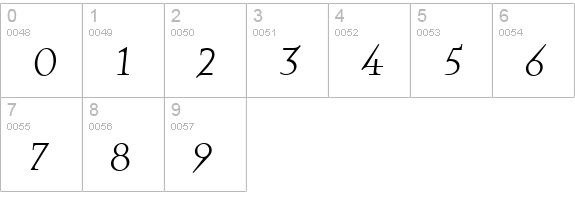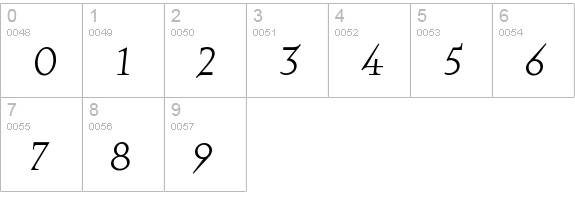
QuartetRegularLining Regular Font Details
QuartetRegularLining Regular is the standard, neutral variant in the QuartetRegularLining typeface family \xE2\x80\x94 well suited to general body text, paragraphs, and standard typographic work.
QuartetRegularLining Regular font is a beautifully crafted typeface that exudes elegance and sophistication. With its clean lines and balanced proportions, this font is perfect for a wide range of design projects, from branding and packaging to editorial and web design. The QuartetRegularLining Regular font features a classic serif style, with sharp edges and distinct letterforms that lend a timeless appeal to any design. Each character is meticulously crafted to ensure readability and visual harmony, making this font a versatile choice for both headings and body text. One of the standout features of QuartetRegularLining Regular font is its versatility. Whether you're designing a logo for a high-end fashion brand or creating a sleek website for a modern tech startup, this font has the versatility to adapt and enhance any project. What's even better is that QuartetRegularLining Regular font is available for free download at FontsMarket.com. This means that you can easily access and use this elegant typeface in your design projects without any cost. It's a fantastic opportunity to elevate your designs with a premium font, all while staying within your budget. In conclusion, QuartetRegularLining Regular font is a timeless and versatile typeface that will add a touch of sophistication to any design project. With its clean lines, balanced proportions, and freely available download at FontsMarket.com, this font is a must-have for designers seeking a premium look without the premium price tag.